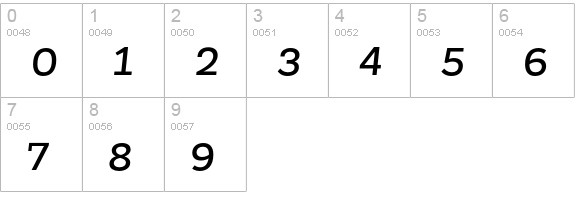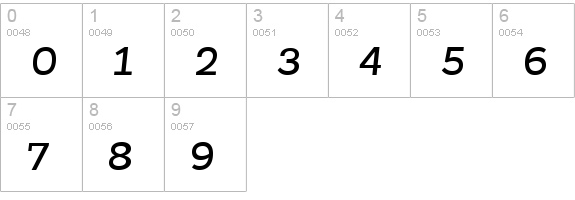
Newslab Medium Italic Font Details
Newslab Medium Italic is a balanced, medium-weight, italic variant in the Newslab typeface family \xE2\x80\x94 well suited to sub-headlines, navigation, and balanced editorial work.
Introducing Newslab Medium Italic font - a sleek and modern typeface designed to elevate your design projects to the next level. With its stylishly slanted letters and clean lines, this font exudes sophistication and professionalism. The Newslab Medium Italic font is perfect for a wide range of applications, from editorial design to branding and advertising. Its versatility makes it a go-to choice for designers looking to make a bold statement while maintaining readability and elegance. And the best part? Newslab Medium Italic font is completely free to download at FontsMarket.com. Yes, you read that right - you can access this premium font at no cost, making it a valuable addition to your font collection without breaking the bank. Don't miss out on this opportunity to enhance your projects with the Newslab Medium Italic font. Download it today and see the difference it can make in your designs.